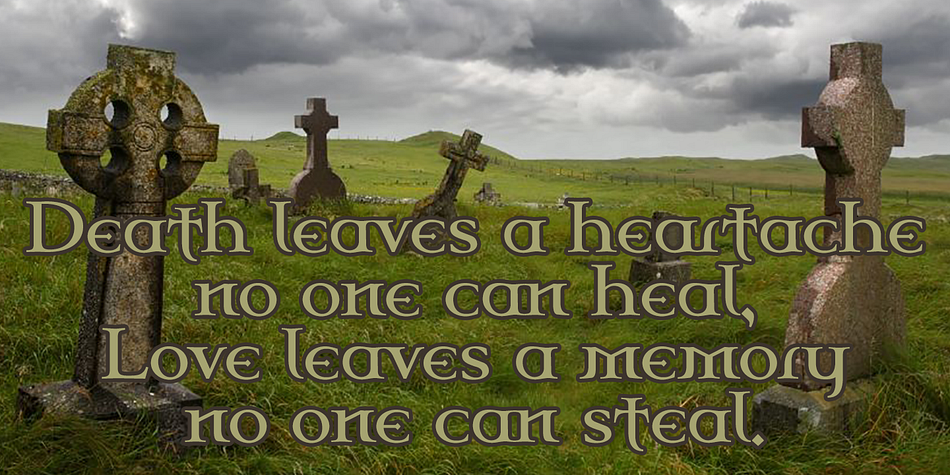
Celtic Garamond Pro
Celtic Garamond Pro is a display serif, exotic and historical font family. This typeface has three styles and was published by CheapProFonts.
Perfect for that oldstyle look, but still very readable.
I have cleaned up the outlines, improved the spacing and kerning, modified a few letterforms - and then expanded the character set by 440%!
A bolder weight has now also been created, and a rough version for a more antique look.
A classical proportioned text font - with a celtic twist! Perfect for that oldstyle look, but still very readable.
I have cleaned up the outlines, improved the spacing and kerning, modified a few letterforms - and then expanded the character set by 440%!
A bolder weight has now also been created, and a rough version for a more antique look.